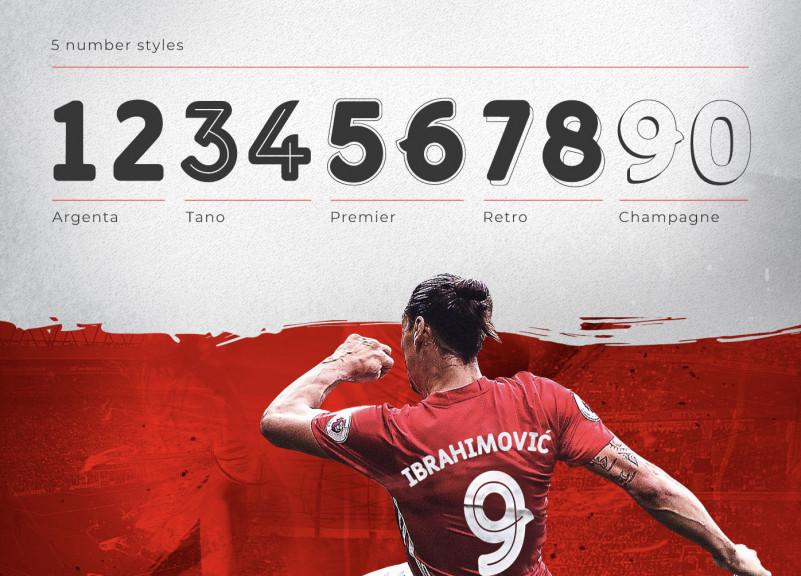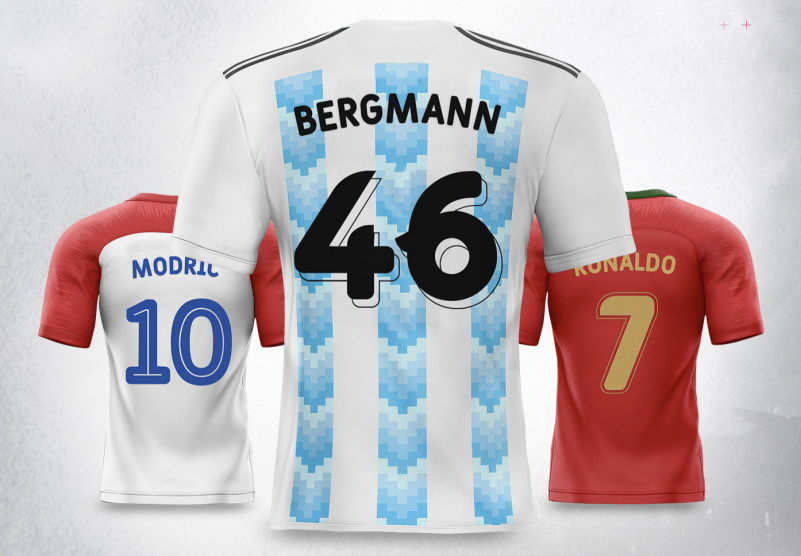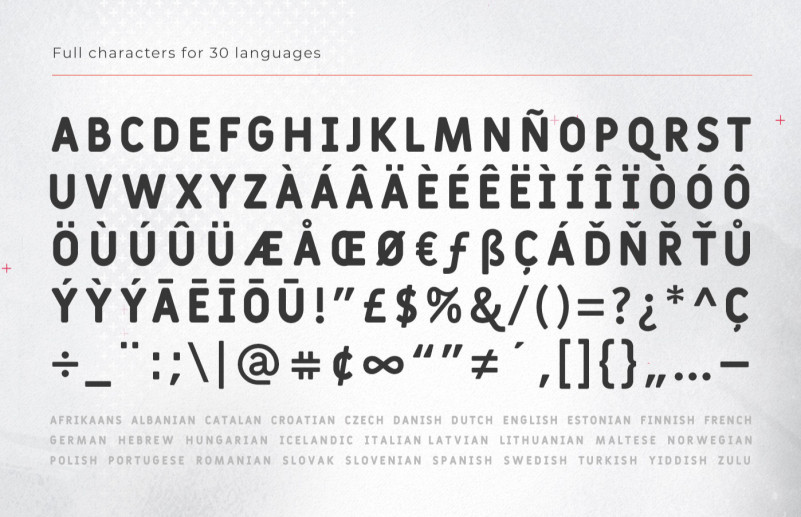
Fulbo Typeface
From the football pitch direct to your designs. Fulbo font was created to maximize visibility of the numbers when the jersey is in action. Boost your creativity with the five styles of Fulbo Font. Design by Alejo Bergmann & Emmanuel Baldor.
All the Fulbol fonts seem to be the same. What am I missing?
Check the numbers! They got different styles.